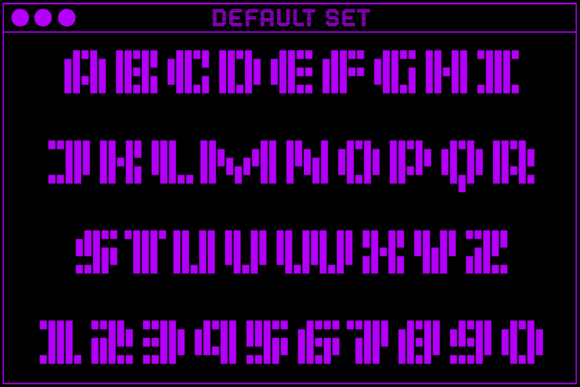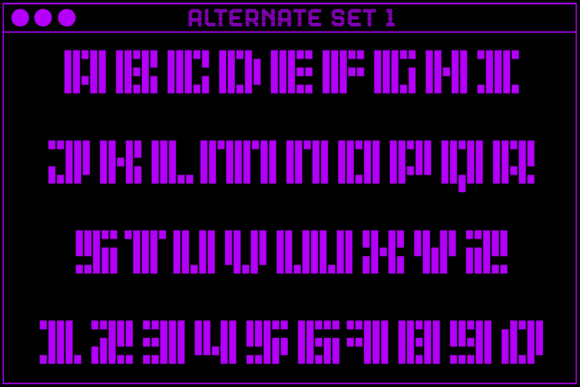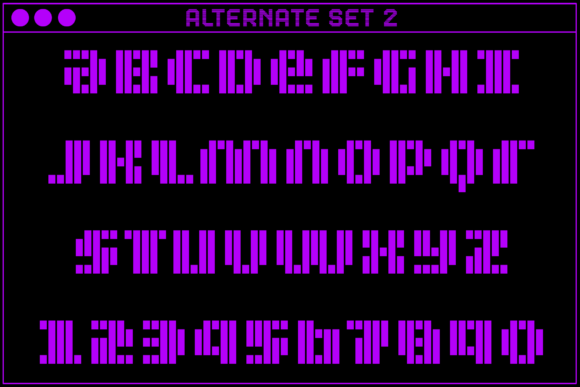
Introduction to MultiType Lines Display Bold Font
As a designer, have you ever stumbled upon the perfect font to elevate your creative project, only to find it’s missing that extra oomph to make it truly stand out? I’ve been there too. But what if I told you there’s a font that’s not just any font, but a game-changer? Say hello to MultiType Lines Display Bold Font, a unique, pixelated decorative font that’s about to take your designs to the next level.
With its bold, high-quality design and transparent background, this font is a design resource like no other. Whether you’re working on a creative project or simply looking for a fresh new look, MultiType Lines Display Bold Font is the perfect addition to your toolkit. And the best part? It’s free to download and use, making it a valuable asset for designers of all levels.
Key Features of MultiType Lines Display Bold Font
- High-quality display font with a bold and modern design, ideal for creative projects and design resources.
- MultiType Lines Display Bold Font is a versatile design resource, suitable for a wide range of creative projects, from logos and branding to web design and advertising.
- Features a unique, bold font style that is sure to make your design stand out and grab attention.
Honest Review: MultiType Lines Display Bold Font
As a designer, I’m always on the lookout for high-quality design resources to elevate my creative projects. The MultiType Lines Display Bold Font has caught my attention, and I’m excited to share my honest review with you.
What works well: ✨ The font is incredibly versatile, with a transparent background that makes it perfect for overlaying on images or other design elements. The high-quality design ensures that it looks great on a wide range of devices and screens.
- Perfect for creative projects: The font’s bold, display style makes it ideal for headlines, titles, and other prominent design elements.
Any limitations: ⚠️ While the font is high-quality, it may not be suitable for body text due to its bold style. Additionally, some users may find the font’s transparent background to be distracting in certain contexts.
Overall impression: I’m impressed with the MultiType Lines Display Bold Font’s potential to elevate my creative projects. With its versatility, high-quality design, and free download, it’s a valuable resource for any designer. However, it may not be the best choice for every project, so be sure to use it thoughtfully.
Getting the Most Out of MultiType Lines Display Bold Font
To get the most out of this font, be sure to experiment with different font sizes, colors, and alignments. You can also combine it with other design elements, such as images and shapes, to create a unique and eye-catching design. With its high quality and versatility, MultiType Lines Display Bold Font is a valuable addition to any design resource library.
MultiType Lines Display Bold Font is perfect for a wide range of design applications, including creative projects, presentations, and documents. Its high quality and transparent background make it an ideal choice for designers who want to create eye-catching and professional-looking designs. With its free download option, you can easily access and use this font in your next design project.